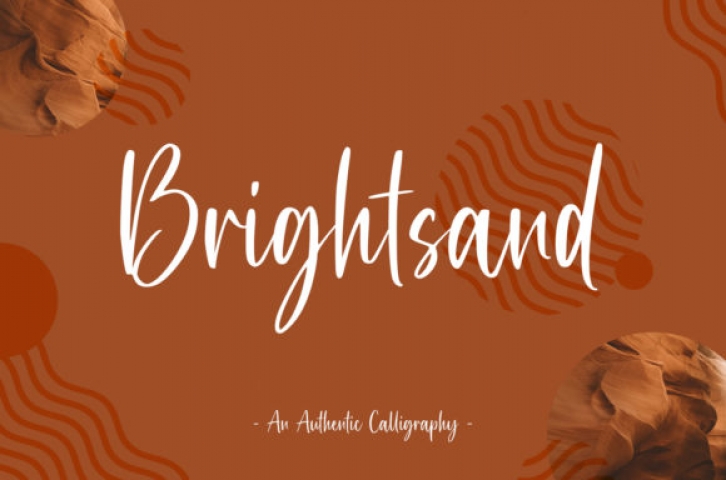
Brightsand is a unique and elegant handwritten font. It looks beautiful on a variety of designs requiring a personalized style, such as wedding invitations, thank you cards, weddings, greeting cards, logos and so on.